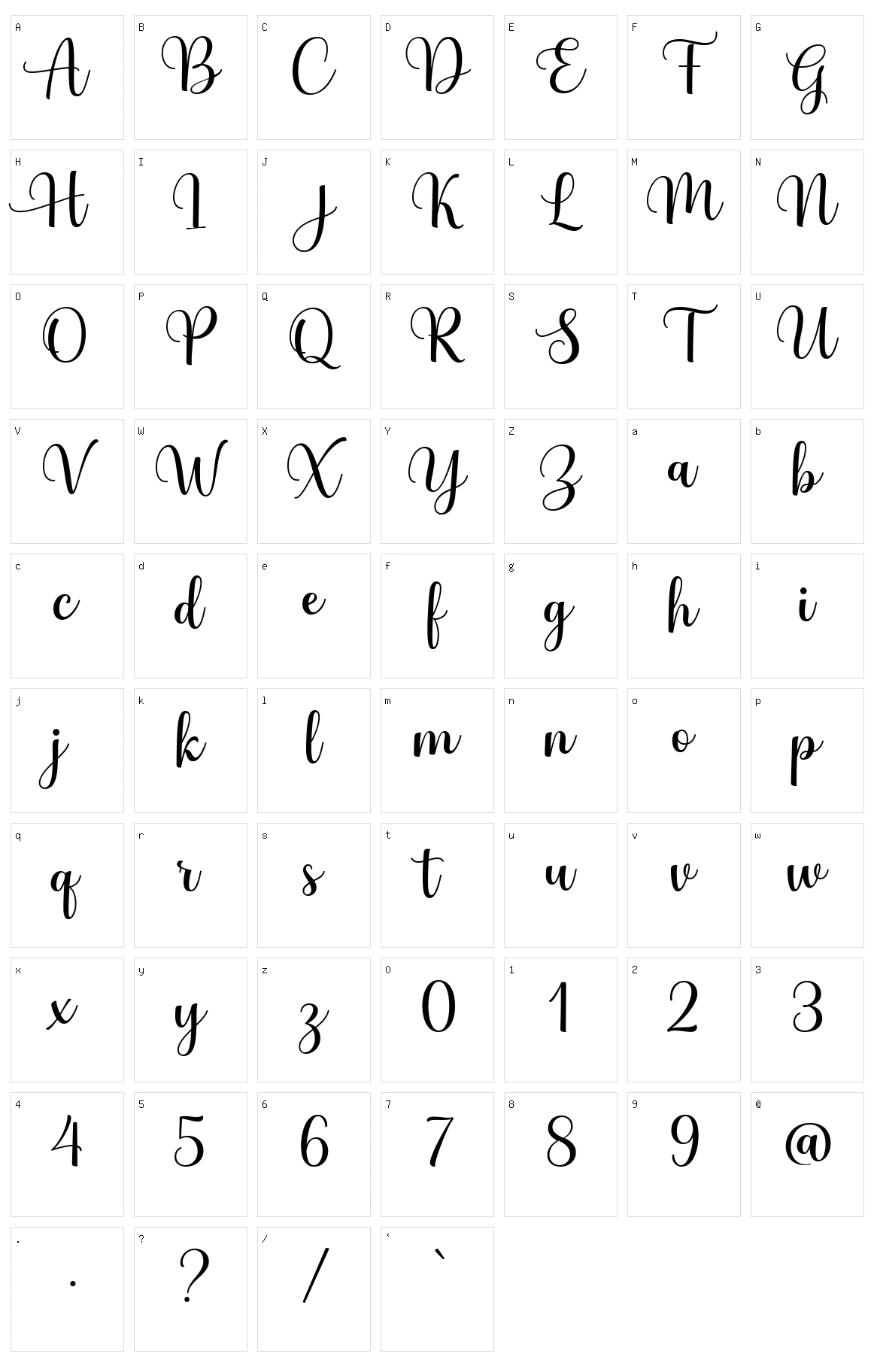
The free font Hey Magnolia is carefully designed by Mytha Studio, showcasing a thoughtful balance of creativity and usability and falls under the Script font style. When you download the ZIP file, it contains only 22.84 KB of font files, making it lightweight and quick to download. Please review the license details below to understand permitted usage and distribution rights. If license information is not available, we recommend using this font for personal projects only or contacting the author directly for commercial usage permissions.